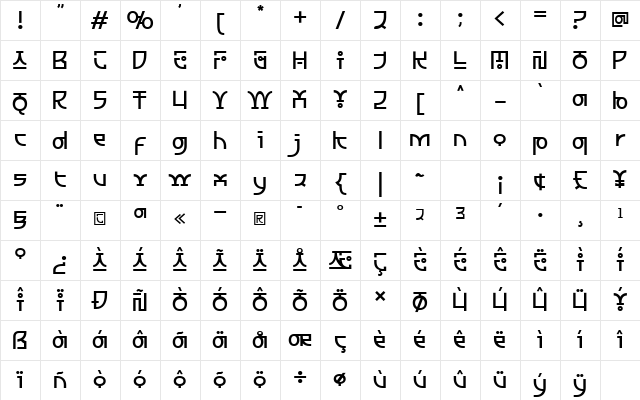
LAKOSHEN Trial Regular
Foundry: twinletter
Designer: Andika
Design Context for LAKOSHEN Trial
LAKOSHEN Trial is a composed and adaptable typeface that performs quietly and consistently across a wide range of design contexts.